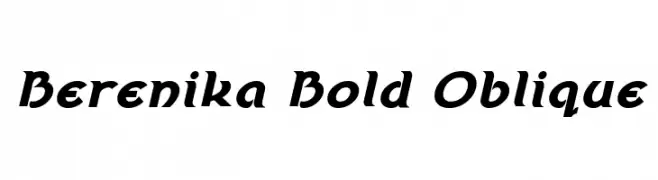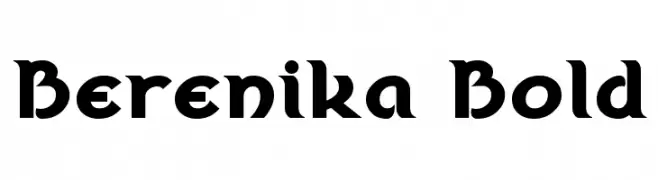
A bold serif typeface with high contrast and classic elegance.
A bold, italic serif font with a classic and elegant style.
A bold, classic serif font with strong, elegant strokes.
A bold, italic serif font with a classic and elegant style.